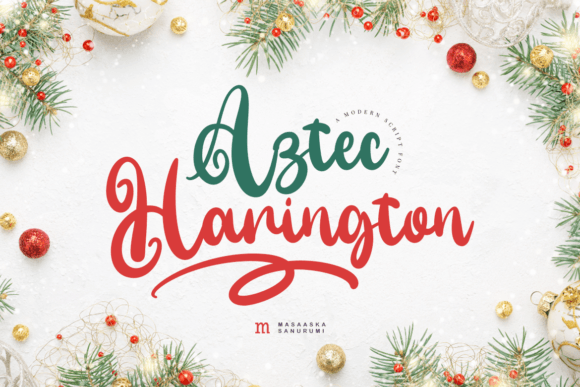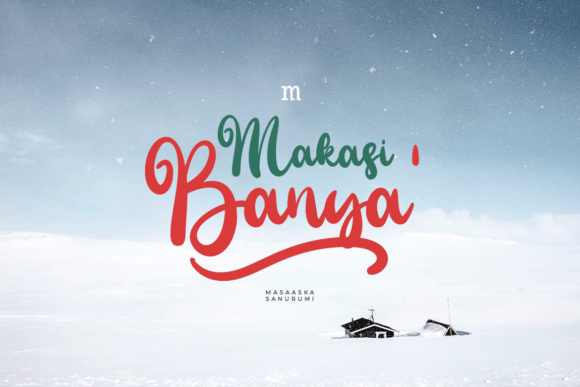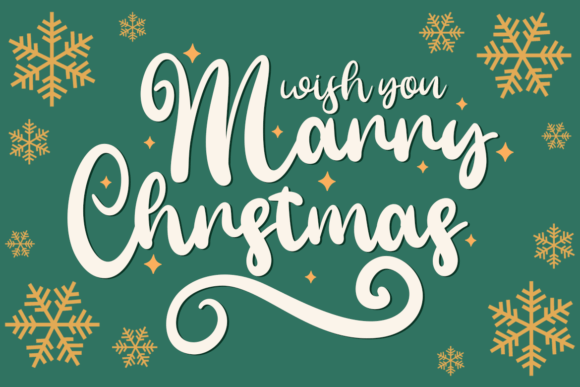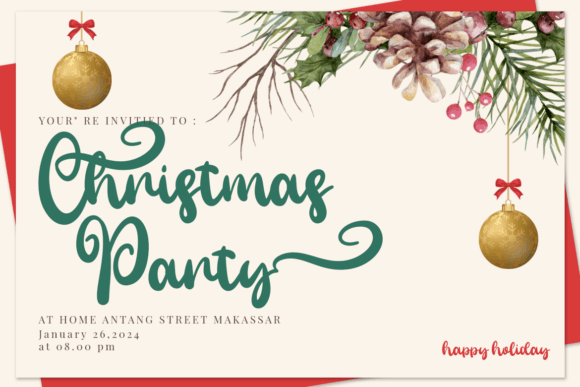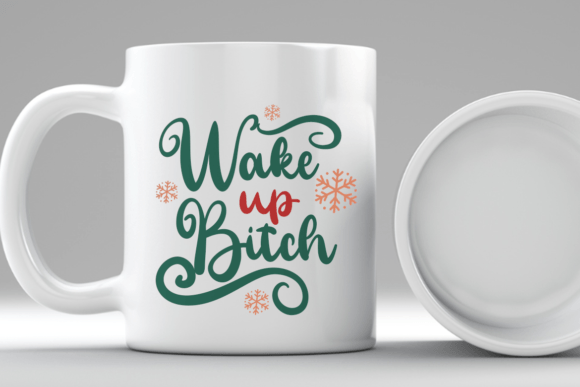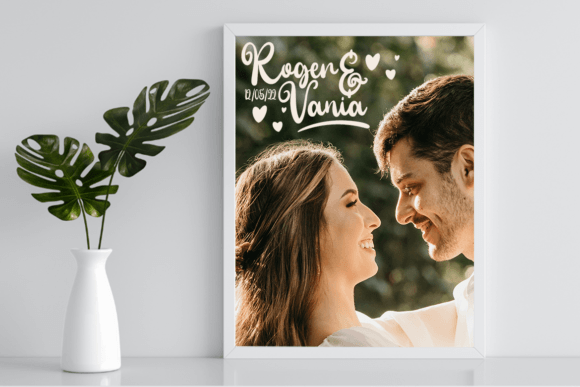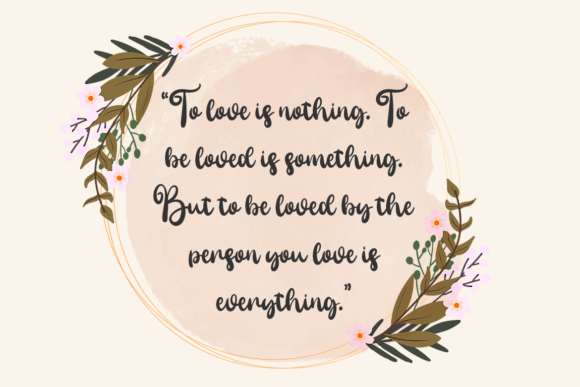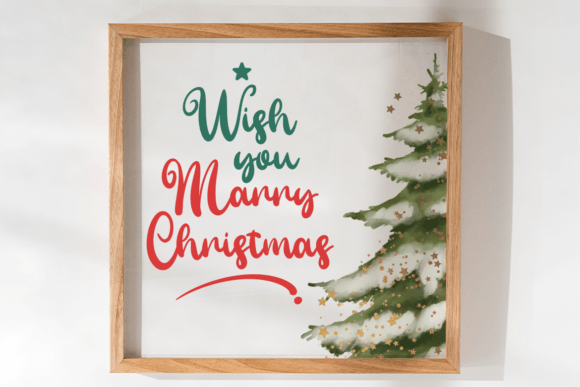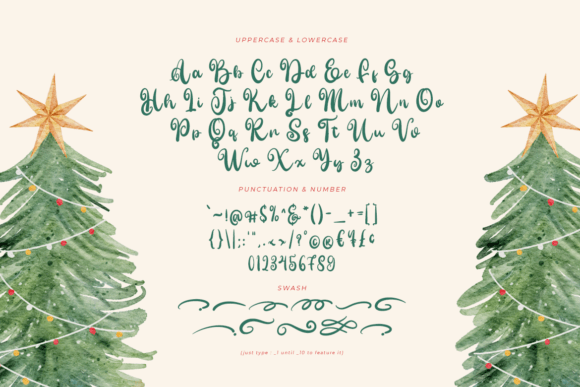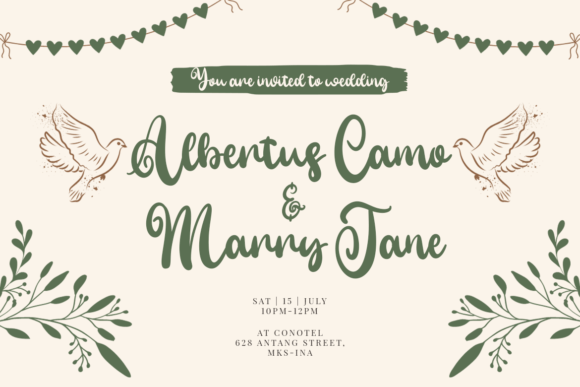
Aztec Harington Font
Add Simple Style with Aztec Harington Font
The Aztec Harington font is a beautiful and modern script designed to bring simplicity and style to your creative projects. Whether you’re crafting Instagram posts, DIY calligraphy projects, or any other artistic endeavor, this font transforms your ideas into true works of art.
Perfect for Instagram, DIY, and Creative Designs
The Aztec Harington font shines in various contexts such as social media graphics, personalized crafts, branding, invitations, and posters. Its clean and elegant strokes add a refined and fresh look to your projects.
A Handwritten Script Defined by Simplicity
Each character in the Aztec Harington font is crafted to deliver smooth, readable strokes that emphasize simplicity without sacrificing style. This font is ideal for headlines, logos, and decorative text that requires clarity and elegance.
Despite its minimalist style, the Aztec Harington font maintains excellent readability at various sizes. Whether used for bold titles or delicate text elements, it balances clarity with charm, making it a versatile choice for many creative projects.
Make Your Designs Shine with Modern Simplicity